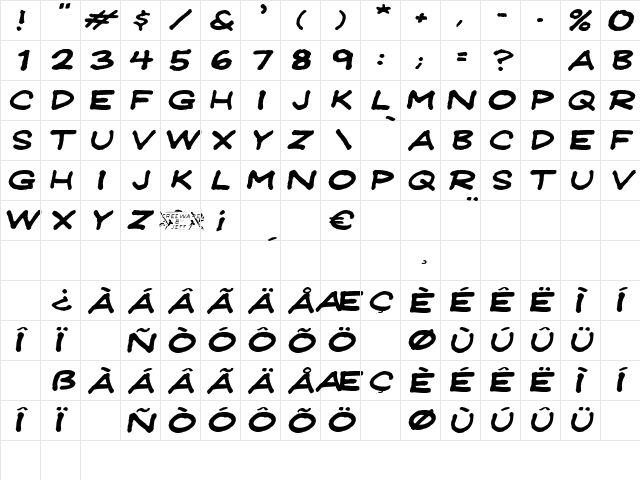
JeffreyPrint JL Wide Italic
Design Context for JeffreyPrint JL Wide Typeface
JeffreyPrint JL Wide is a composed and adaptable typeface that performs quietly and consistently across a wide range of design contexts. Its italic angle brings a sense of urgency and motion to the letterforms.
Pro Tip: Try JeffreyPrint JL Wide for annotation and caption copy alongside an upright companion — the contrast in angle creates a dynamic but ordered typographic system.